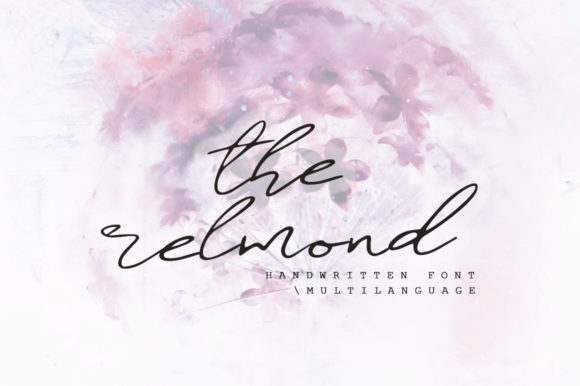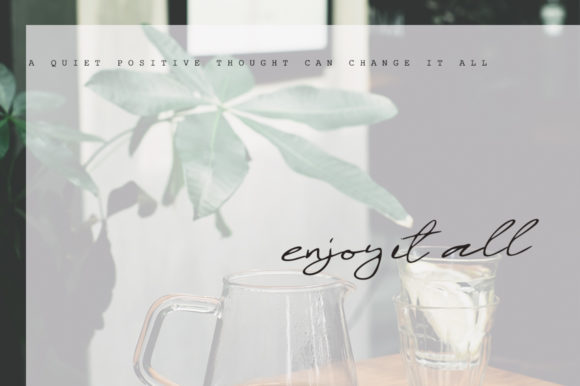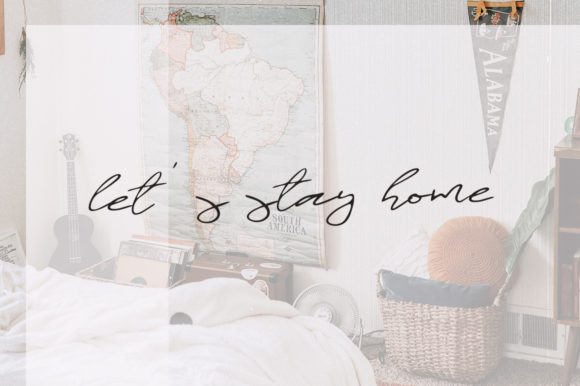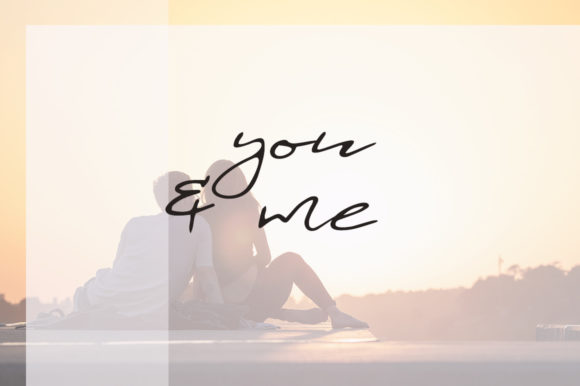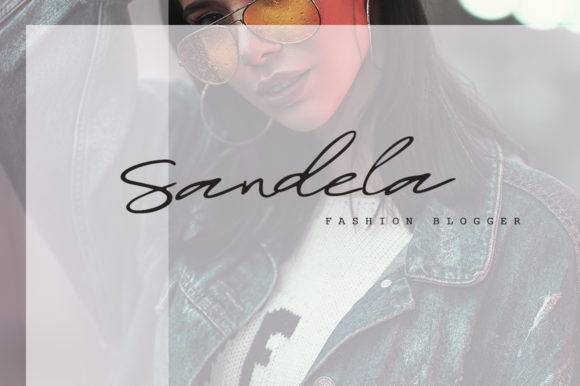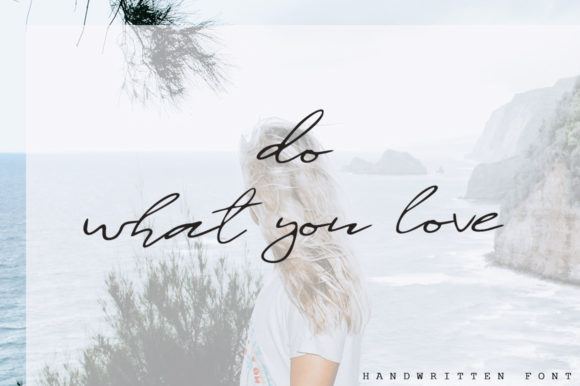
The Relmond Font
About The Relmond Font
The Relmond is a casual handwritten font. Every single letter has been carefully created to give your design a beautiful touch. It can be used for logos, quotes, blog headers, posters, wedding stationary and much more!